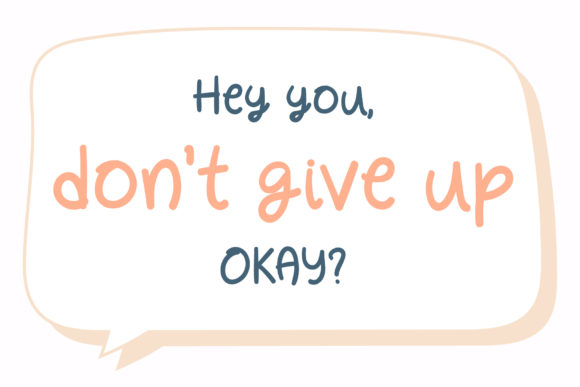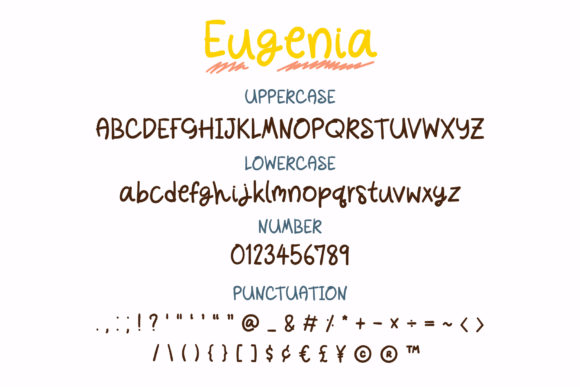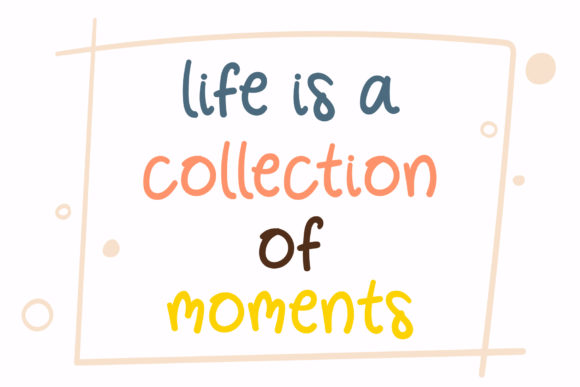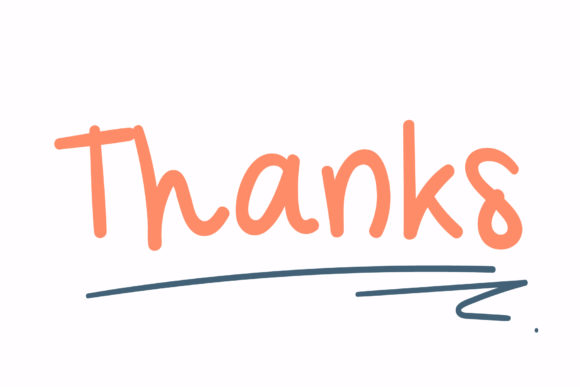
Eugenia Font
About Eugenia Font
Eugenia is a simple and friendly handwritten font. Its natural and unique style makes it incredibly fitting to a large pool of designs. The only limit is your imagination!